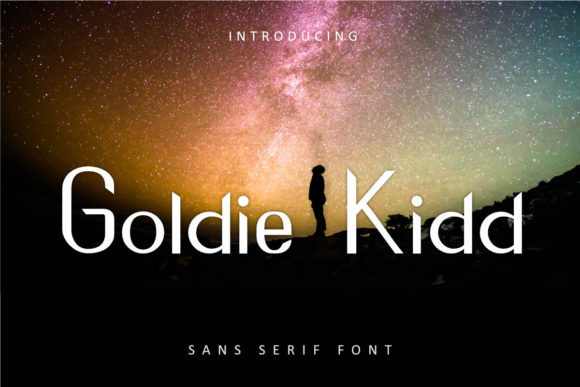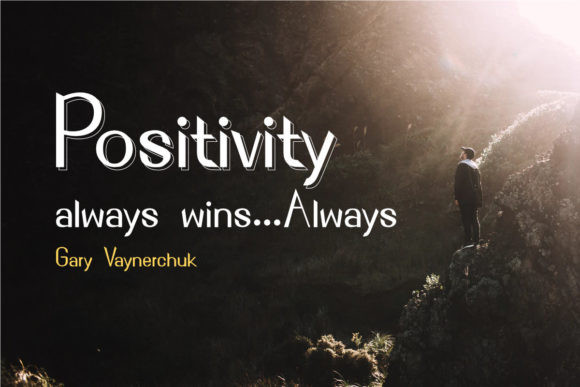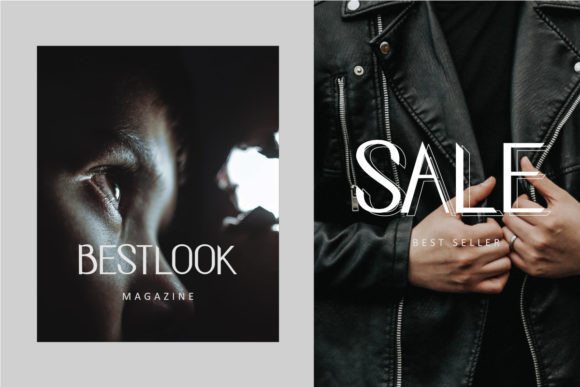
Goldie Kidd Font
Goldie Kidd is a neat and trendy sans serif font. This original look will appeal to a wide range of crafty ideas, from letterheads and titles, to stationery.